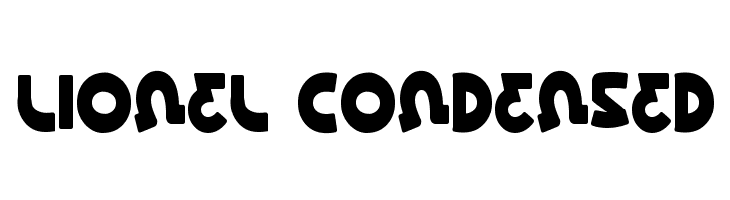
A bold, playful, and condensed font with rounded geometric shapes.
A bold, condensed, and italicized font with a dynamic and strong presence.
A bold, expanded font with a playful and modern style.
A bold, expanded, and italic font with a dynamic and playful style.
A bold, italic font with a dynamic and playful style.
A bold, playful font with a leftward slant and rounded characters.
A bold, playful font with a three-dimensional shadow effect.
A bold, playful font with a shadow effect and slight italicization.